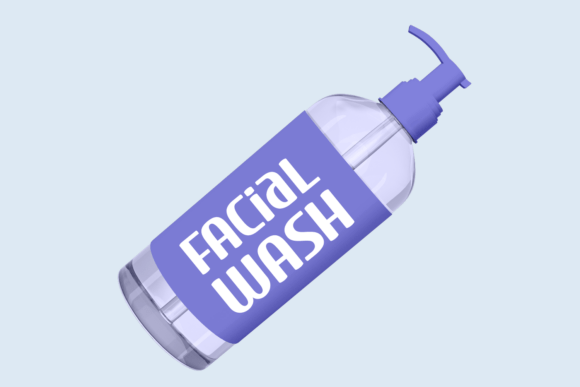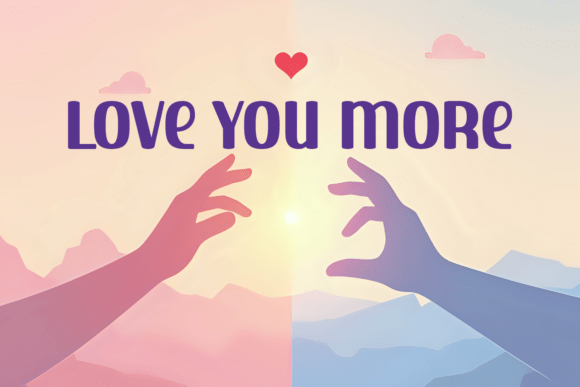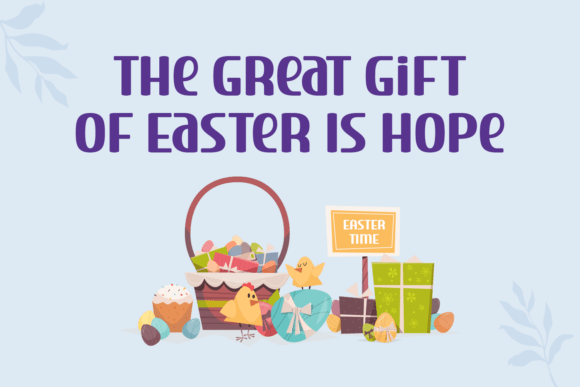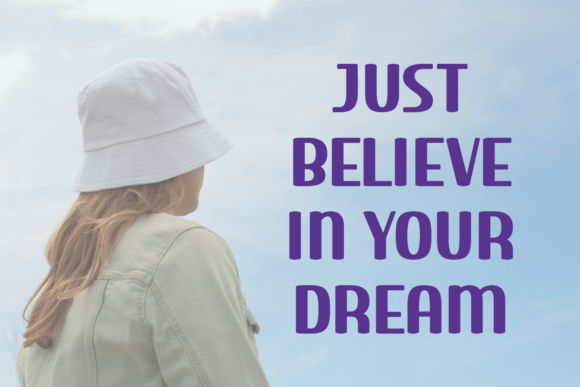
Introducing Easter School Font: Adding a Touch of Whimsy to Your Designs
I’ll never forget the time I was working on a project for a kids’ craft company, and I was struggling to find the perfect font to bring their brand to life. The client wanted something playful, yet sophisticated, and I was determined to deliver. That’s when I stumbled upon Easter School Font, and it was love at first sight! 💕
This charming typeface has a way of dancing across the page, infusing even the most mundane designs with a touch of whimsy. In this article, I’ll share my experience with Easter School Font, including what I love about it, some practical tips on how to use it, and a few similar fonts you might enjoy.
An Honest Review of Easter School Font
- ✨ Playful yet sophisticated design that’s perfect for kids’ projects and corporate branding
- 🎉 Extensive character set, including glyphs and stylistic alternates
- 💖 Adorable and cheerful personality that engages young minds
- 🤔 Limited support for non-English languages
- ⚠️ Some users may find the font too playful for formal designs
A Practical Guide to Using Easter School Font
The Backstory of Easter School Font
Easter School Font was designed with the intention of creating a playful yet sophisticated typeface that would bring joy to kids’ designs. The designer, inspired by the whimsy of childhood, crafted a font that’s both fun and legible. The result is a font that’s perfect for kids’ craft projects, corporate branding, and even Easter-themed designs.
| Font Name | Easter School Font |
| Author | Eightde |
Q: Is Easter School Font available in multiple languages?
A: Currently, Easter School Font has limited support for non-English languages. However, the designer may release updates with additional language support in the future.